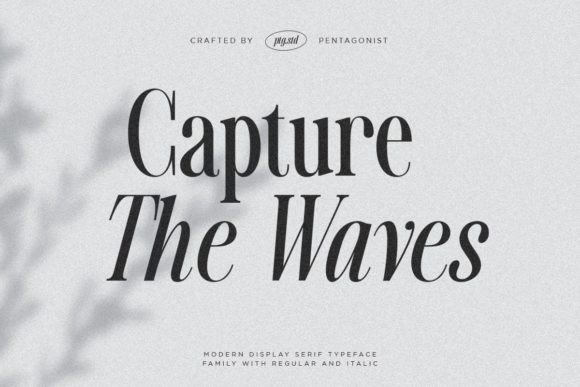
Dive into the depths of modern typography with the Captures the Waves font, a mesmerizing serif display font crafted by Pentagonistudio. This font is not just a collection of letters but an artistic expression that will transform your designs into captivating masterpieces.
Its elegant curves and flowing lines evoke a sense of rhythm and grace, like waves crashing against the shore. The Captures the Waves font is a visual symphony that will leave your audience spellbound. It's the perfect choice for creating logos, posters, branding, and any project that demands attention.
With its timeless beauty and readability, Captures the Waves is the ultimate font for easy reading. Whether you're creating a website, an eBook, or a printed document, this font will ensure your message is conveyed with clarity and impact. Its well-balanced characters and generous spacing make it a joy to read, even for extended periods.
But Captures the Waves is more than just a practical choice; it's a font that sparks creativity. Its unique style adds a touch of sophistication and intrigue to any design, making it the perfect choice for designers who want to make a lasting impression.
So, if you're looking for a font that combines timeless elegance with modern flair, look no further than Captures the Waves. Let this font carry your words to new heights and create designs that resonate with your audience.